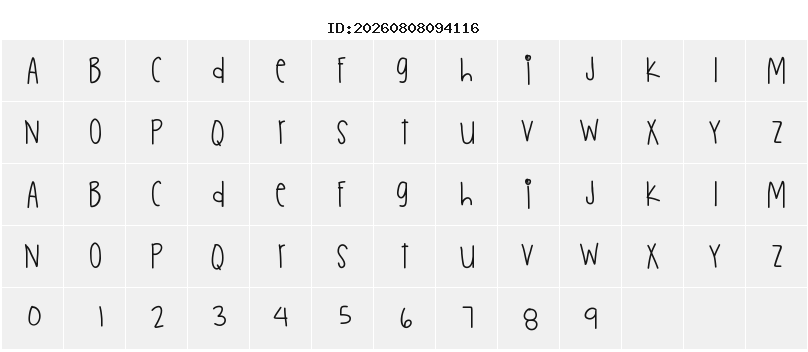
• Font Name: PotionFushia
About PotionFushia.ttf
PotionFushia.ttf is a modern, elegant sans-serif font designed for ultimate readability and visual harmony. Perfect for branding, headlines, web design, and print materials.